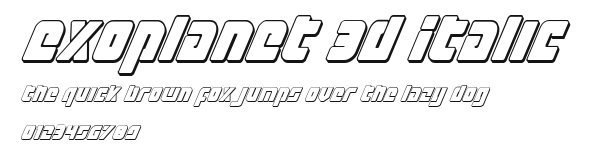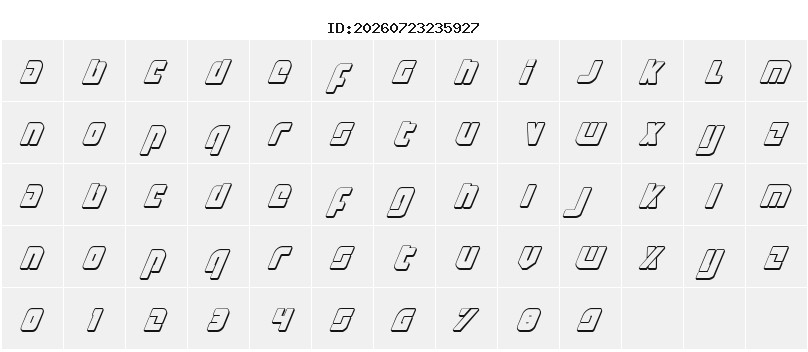
Exoplanet 3D Italic Preview
• Font Name: Exoplanet 3D Italic
• Full Font Name: Exoplanet 3D Italic
About Exoplanet 3D Italic.ttf
Exoplanet 3D Italic.ttf is a modern, elegant sans-serif font designed for ultimate readability and visual harmony. Perfect for branding, headlines, web design, and print materials.